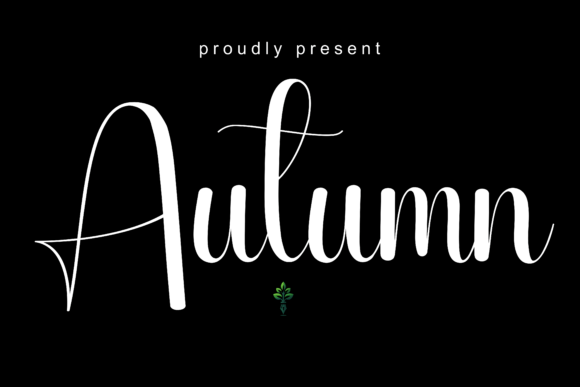
Discover the Enchanting Charm of Autumn Font
As you sit with your design tools, a blank page staring back at you, and a vision in your mind, the perfect font can be the catalyst that brings your creativity to life. It’s in these moments that we search for the perfect tool to convey our message, to evoke emotions, and to leave a lasting impression. That’s where the Autumn Font comes in – a beautifully crafted script font that embodies the essence of the season it’s named after.
With its sleek, minimalist design, the Autumn Font adds a touch of elegance to any project. Whether you’re designing wedding invitations, creating social media updates, or crafting stationery art, this font is the perfect companion to elevate your designs. Its versatility and sophistication make it an invaluable asset for designers, allowing them to create stunning pieces that leave a lasting impression.
Autumn Font Key Features
• Font Family: Autumn Font is a unique, handwritten font designed to evoke the feeling of autumn leaves.
• Character Set: Supports a wide range of languages, including Latin, Cyrillic, and Greek alphabets.
• Unique Characteristics: Features a warm, organic feel with subtle imperfections, giving it a natural, hand-written look.
Designer Review: Autumn Font
Overall, I’d say the Autumn Font is a lovely addition to any design project, especially those centered around the fall season or cozy, natural themes. ✨ The font’s unique blend of rustic and elegant elements makes it perfect for titles, headings, and other display text.
The font’s character set is well-rounded, with a decent selection of glyphs and ligatures. The ligatures are particularly well-designed, adding a touch of sophistication to text.
• Wide range of character variations
• Unique, natural feel
• Good for titles, headings, and display text
However, there are some limitations to consider: ⚠️ The font’s legibility can be a bit of an issue in smaller text sizes, and the font weight range is a bit limited.
• Legibility can suffer at smaller text sizes
• Limited font weight range
Overall, I think the Autumn Font is a great choice for designers looking to add a touch of autumnal charm to their projects. Just be mindful of its limitations and use it accordingly.
Tips: Experiment with different font sizes and colors to create a visually appealing design. Use Autumn Font for titles and headings to add a touch of elegance to your design.
Tips: Use Autumn Font to create a unique and personalized logo or typography design. Experiment with different font sizes and colors to create a visually striking design.
Tips: Use Autumn Font for titles and headings to add a touch of elegance to your presentation or document. Experiment with different font sizes and colors to create a visually appealing design.
Autumn Font is ideal for:
– Creating a warm and inviting atmosphere in designs related to autumn, fall, or harvest.
– Adding a touch of elegance to titles and headings in presentations, documents, and designs.
– Creating a unique and personalized logo or typography design.
Alternatives to Autumn Font
Pacifico is a beautiful, elegant script font that is perfect for designing invitations, greeting cards, and other creative projects. It has a similar warm and inviting feel to Autumn Font, but with a more refined and sophisticated look.
Comparison to Autumn Font: Pacifico has a more polished and high-end feel compared to Autumn Font, making it suitable for more formal designs.
Great Vibes is a fun and energetic script font that is great for designing casual and playful projects like social media posts, blog headers, and advertisements. It has a similar relaxed and casual feel to Autumn Font, but with a more modern and trendy vibe.